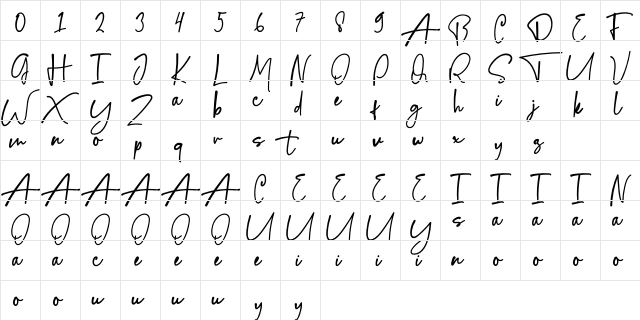
Bigfish Regular
Design Context for Bigfish Typeface
Bigfish is a composed and adaptable typeface that performs quietly and consistently across a wide range of design contexts.